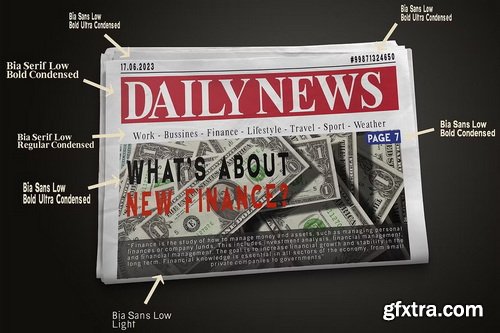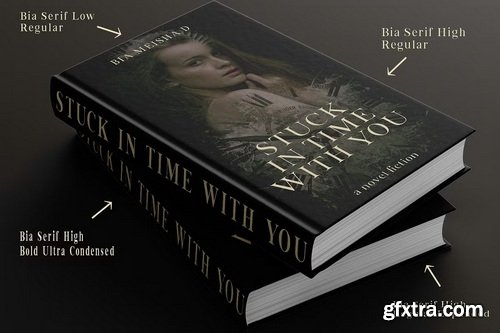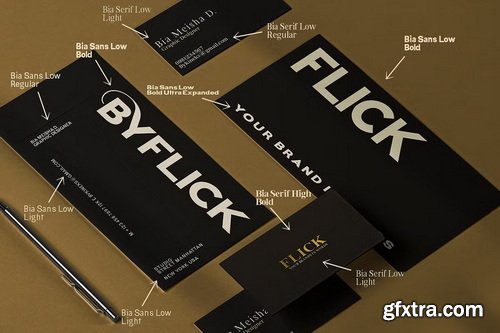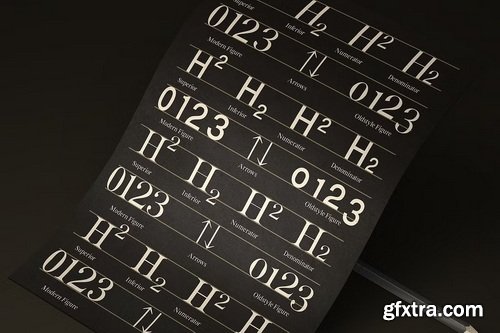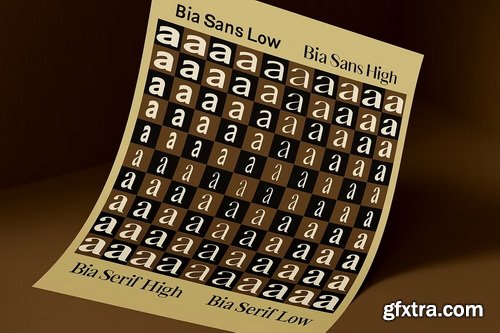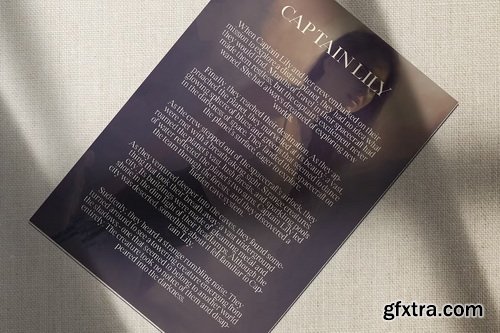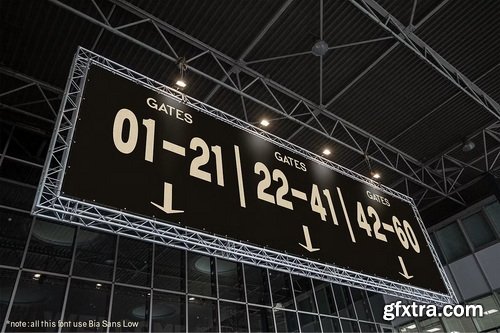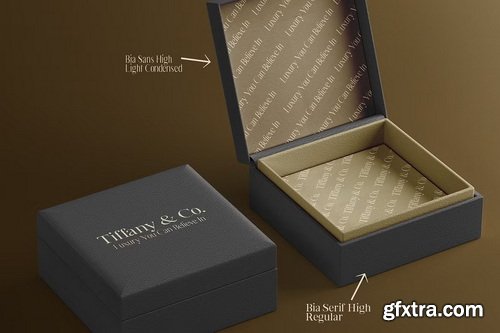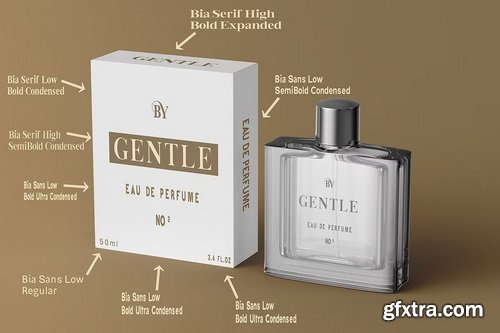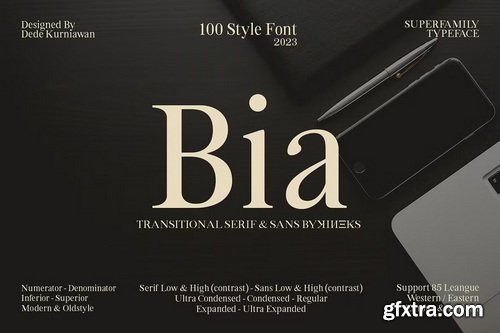
- Bia Superfamily is a new font creation designed with transitional serif classification, consisting of 100 font styles. It is supported by 85 languages of the Western/Eastern Europe and Turkish region, making it suitable for global use. In addition, Bia Superfamily has features such as numerator, denominator, inferior, modern, and old-style figures.
- Bia Superfamily features four different classifications in both serif Low & High (Contrast) and sans-serif Low & High (Contrast) variations, including ultra-condensed, regular, expanded, and ultra-expanded. With its diverse range of font styles, Bia Superfamily offers versatility and flexibility for use in various industries such as skincare, perfume, jewelry, stationary office, newspaper, cover book, web design, sign airport, sign hotel, wedding invitation, and text.
- Bia Superfamily is the perfect font choice for those who want to showcase a luxurious and elegant feel in their designs. Its professional and elegant characteristics make it stand out and attract attention to any design.